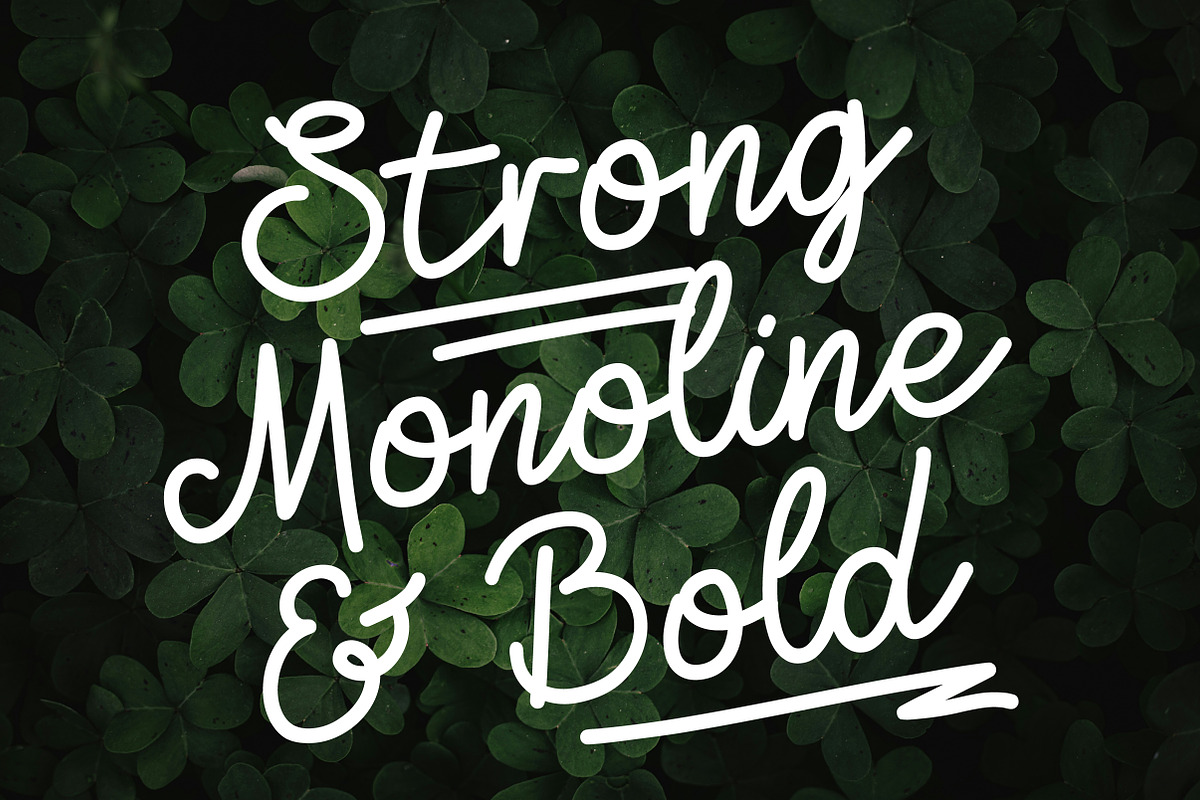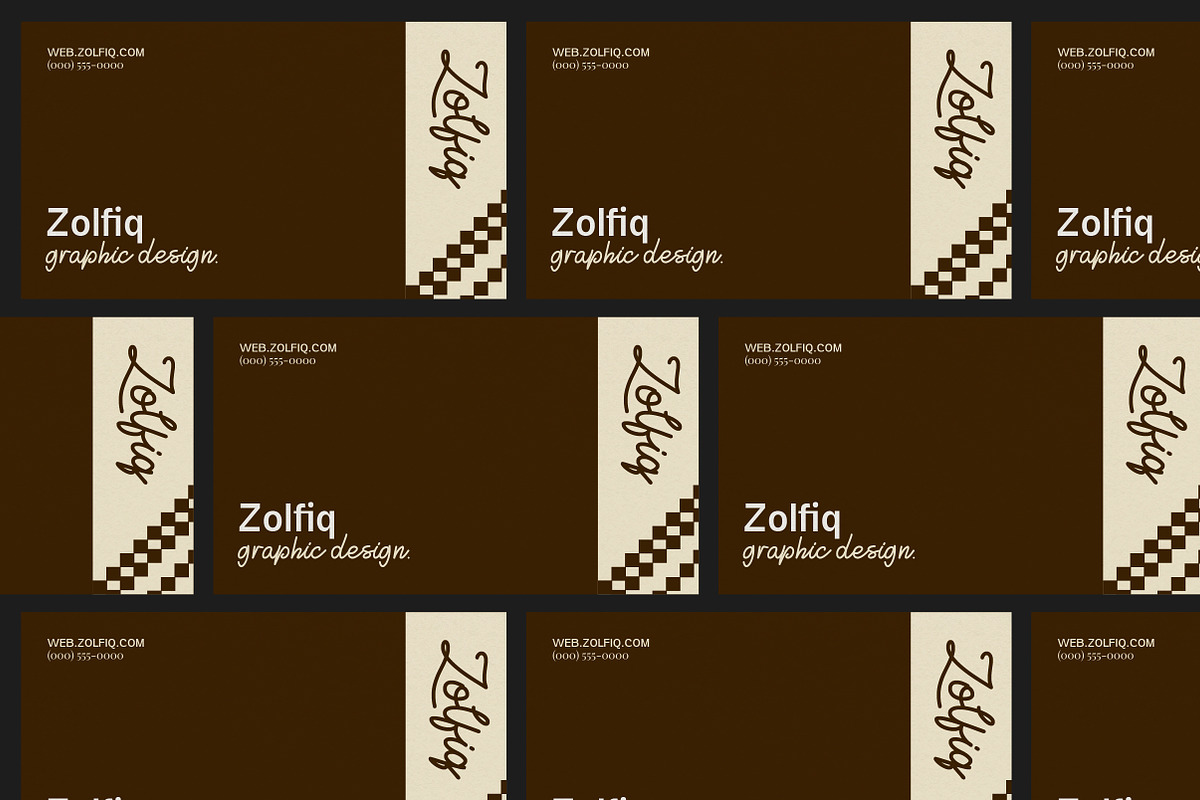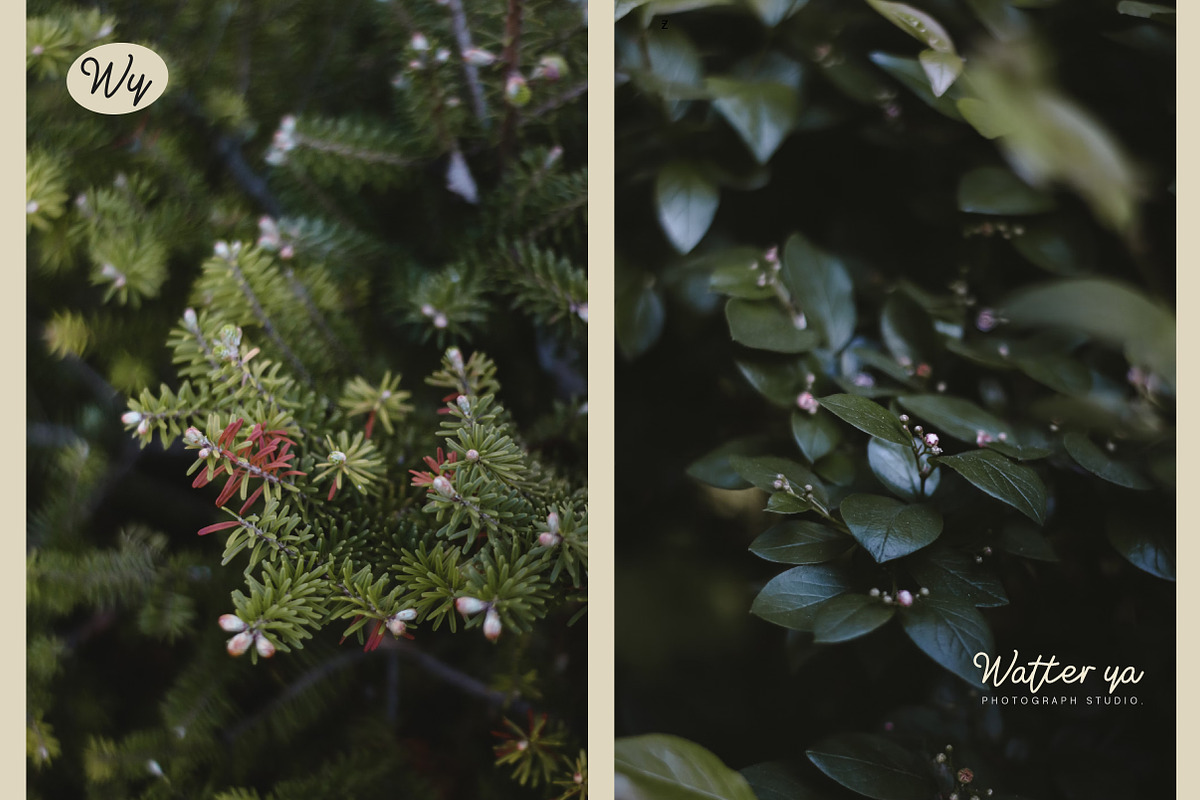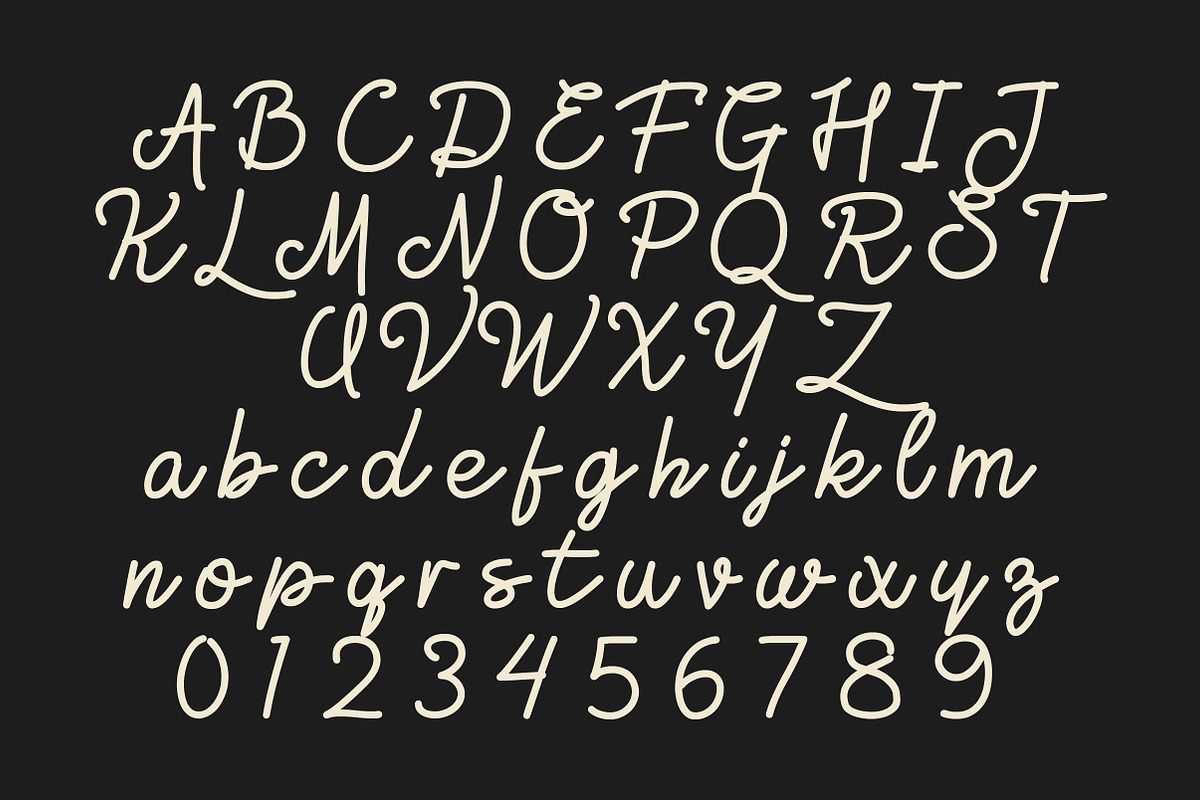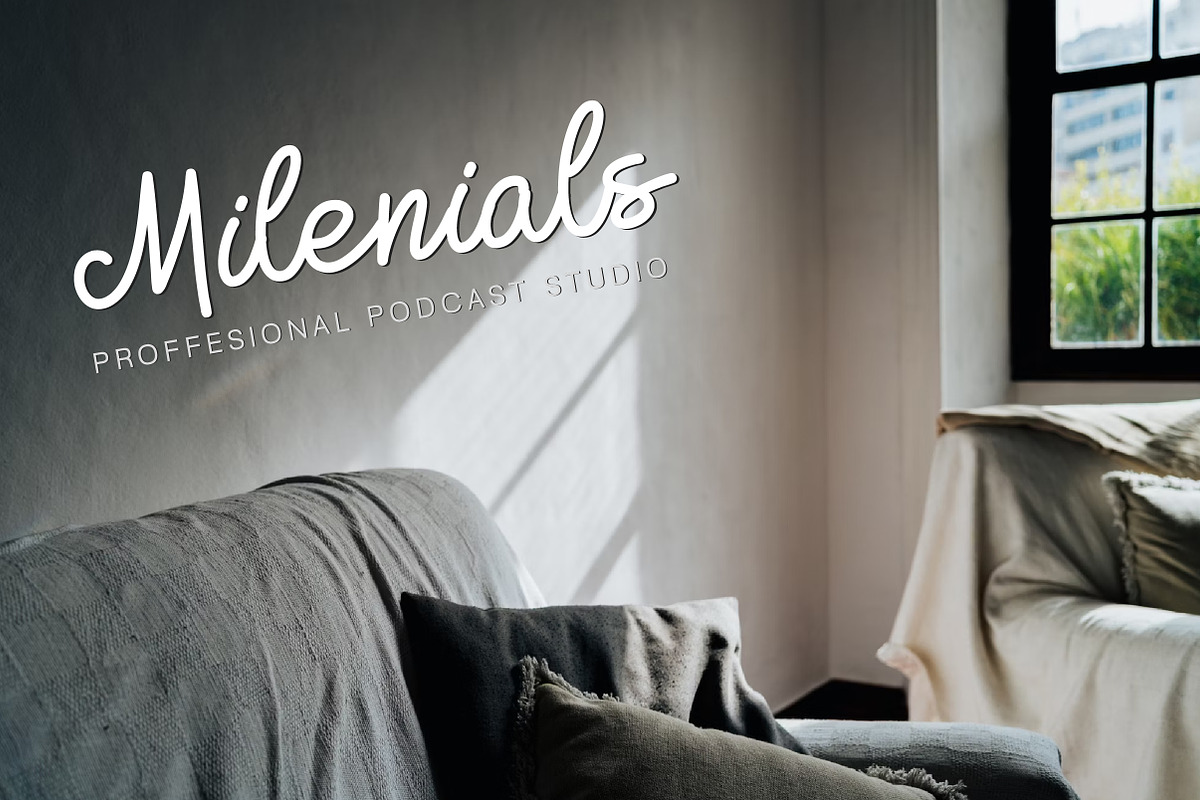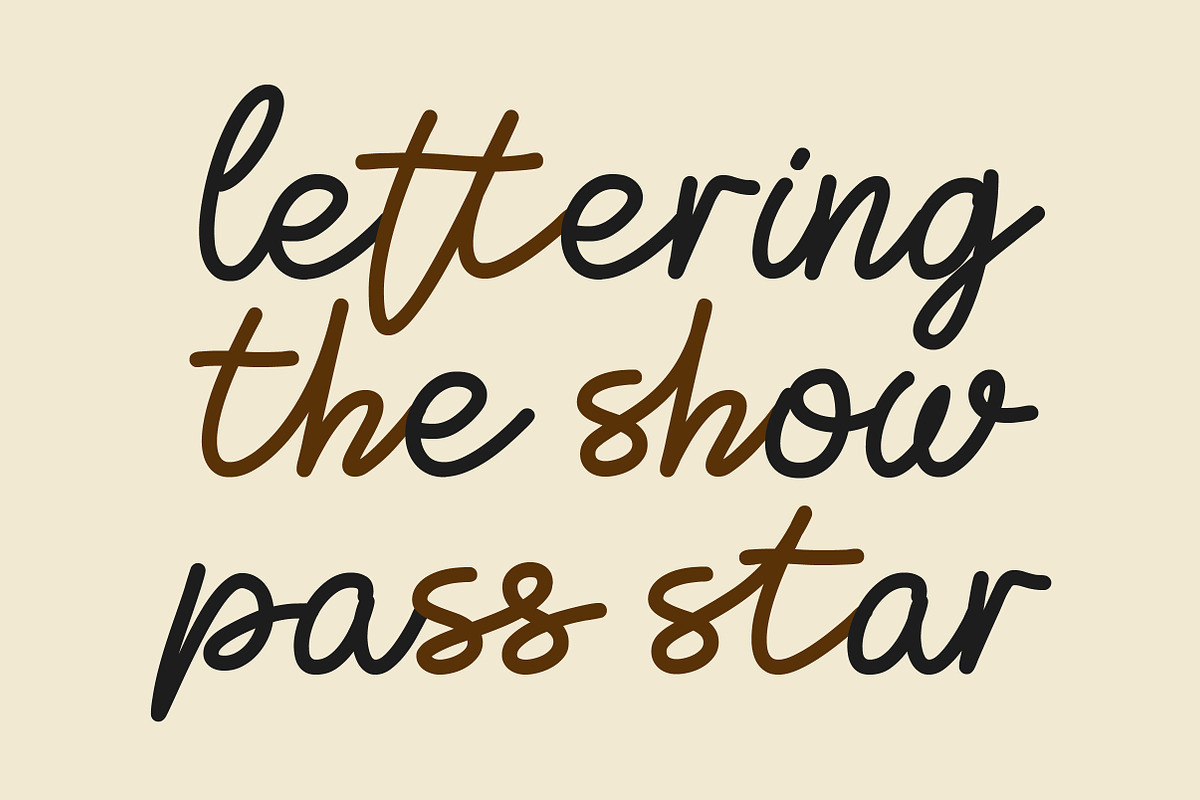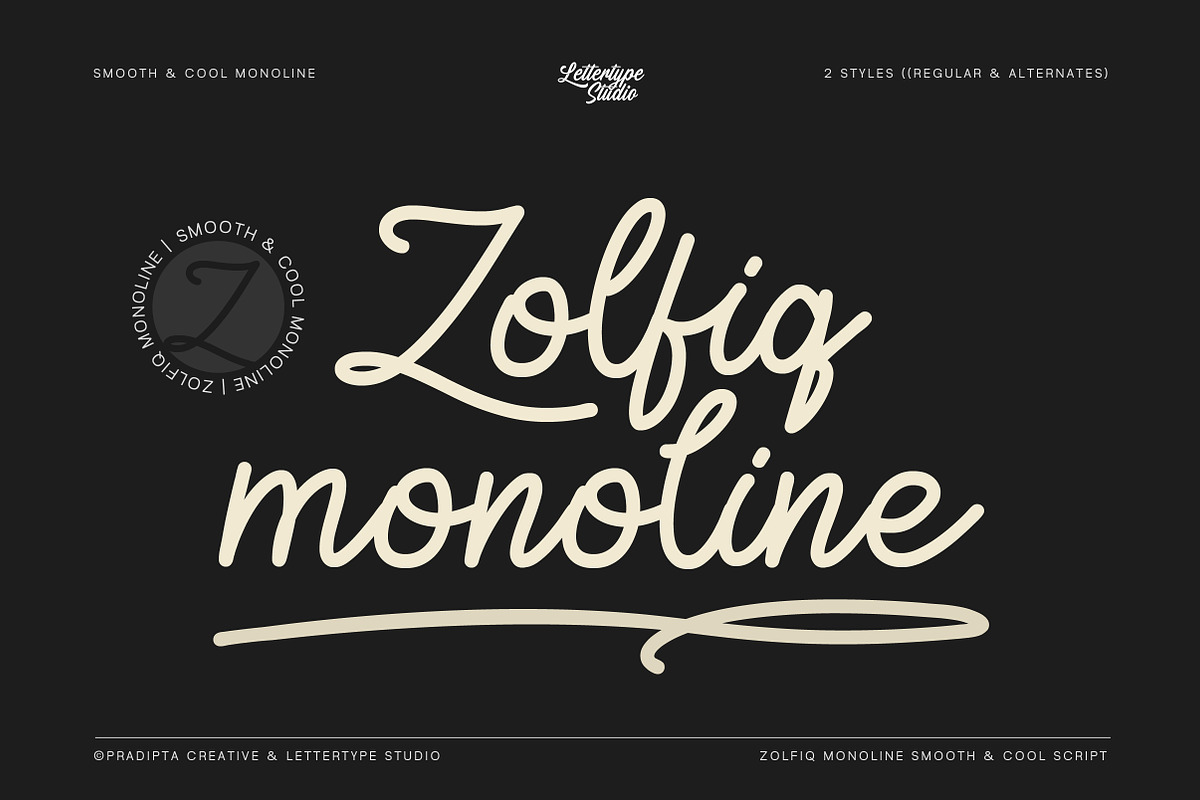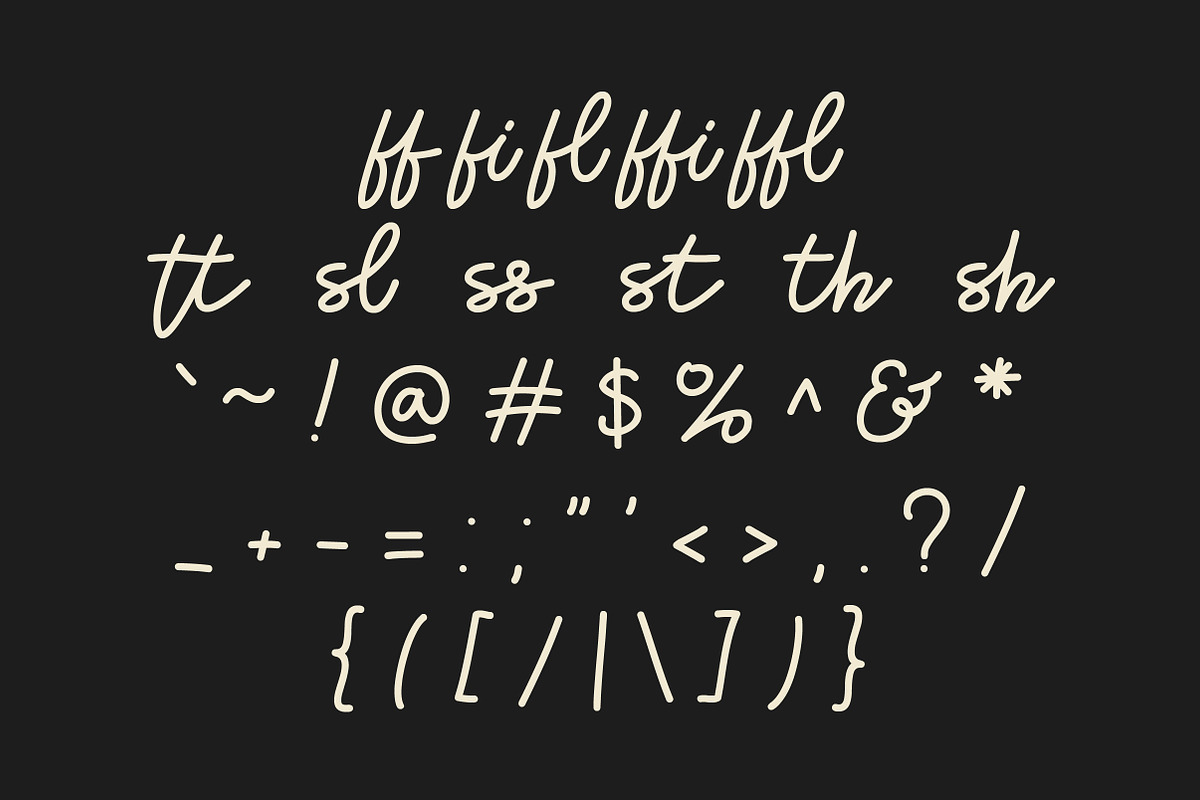
Zolfiq Monoline Smooth & Cool Script
Zolfiq Monoline is a harmonious blend of elegance and modernity. These fonts, characterized by consistent line thickness, offer a clean and sophisticated aesthetic that enhances various design projects. From branding and logos to wedding invitations and digital media,
Their simplicity ensures readability, while their unique designs add a personal touch to any creation. Embrace the timeless appeal of monoline script fonts to elevate your design endeavors.
Lowercase, Uppercase, and Ligatures
Signature logos, personal branding & wedding invitations
Fashion, beauty & lifestyle packaging design
Social media posts, quotes & elegant promotional graphics
Handmade product labels & boutique identity
Greeting cards, stationery & minimalist creative projects